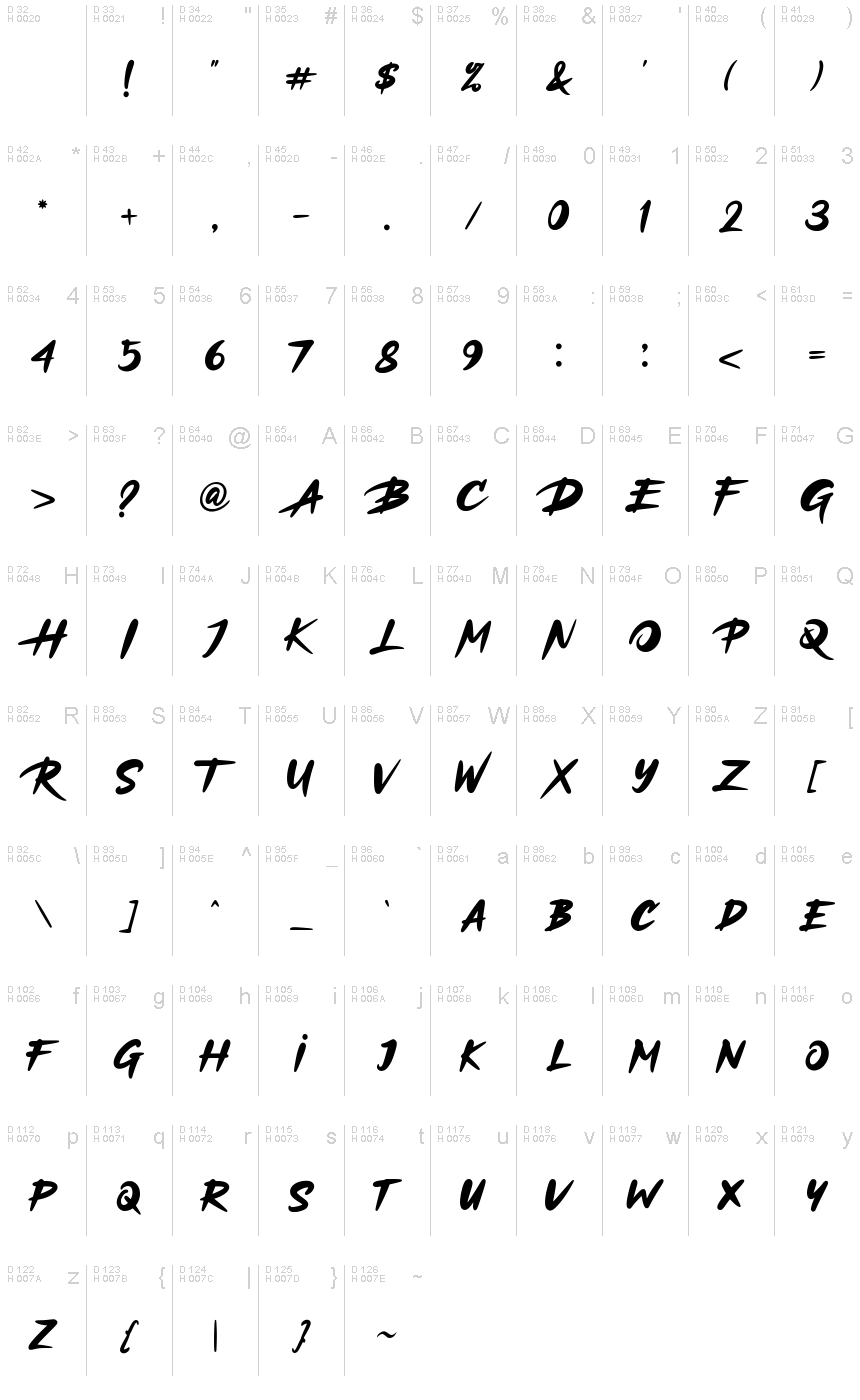
Bornneo
Bornneo, crafted by Basni.std, captivates with its bold brush style that exudes a raw and energetic charm. Its strokes are reminiscent of the flair and freedom of hand-painted signage, bringing an authentic touch to any project. The font's robust form and dynamic flow lend it a casual yet commanding presence, perfect for designs that aim to stand out with a personal touch.
Ideal for creative branding, impactful advertising campaigns, and spirited editorial work, Bornneo infuses a sense of vigor and personality into every word. Its assertive brush strokes make it particularly well-suited for headlines and titles where the emphasis is key. Embrace the distinctive spirit of Bornneo to inject life into your visual storytelling.